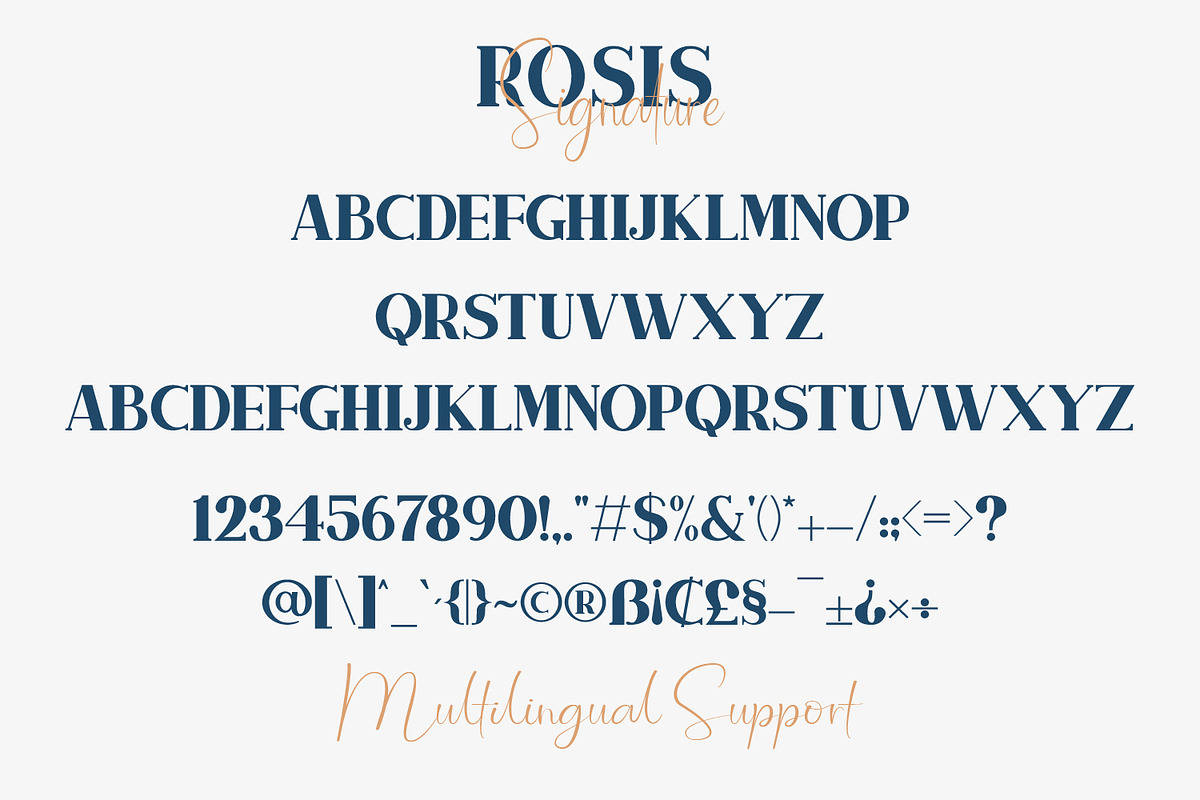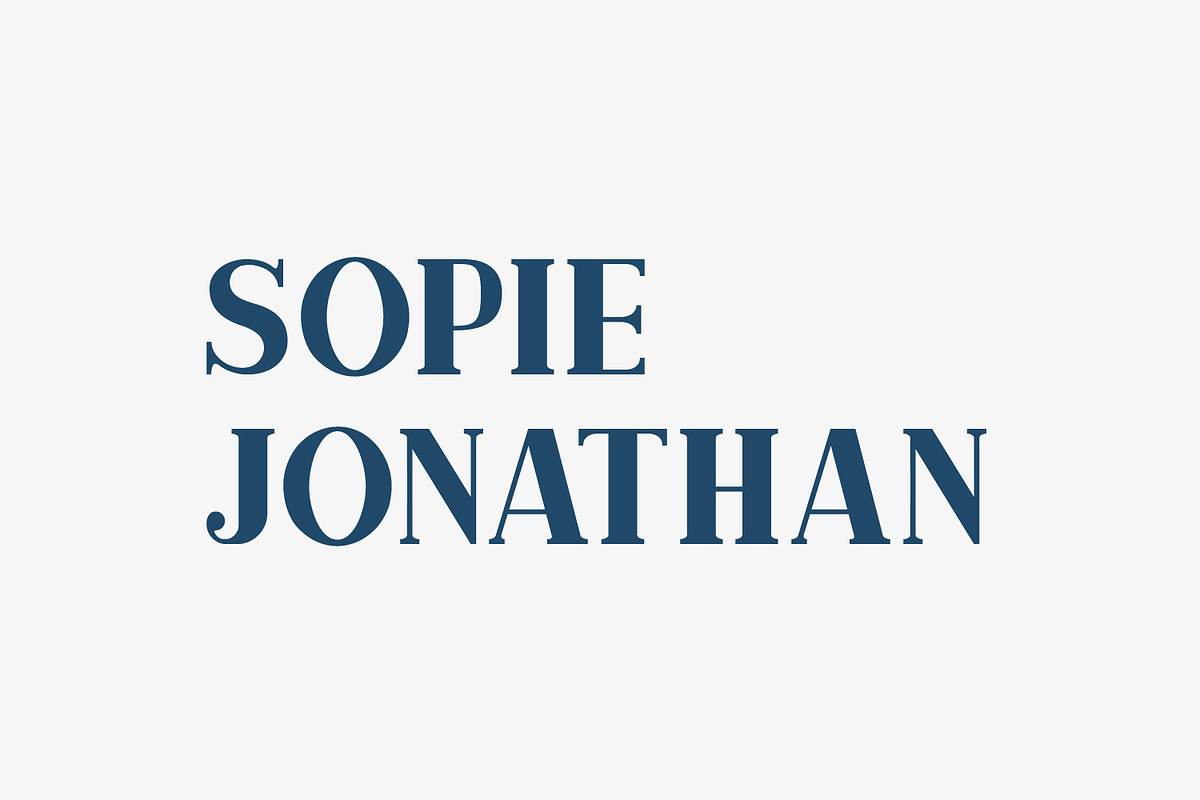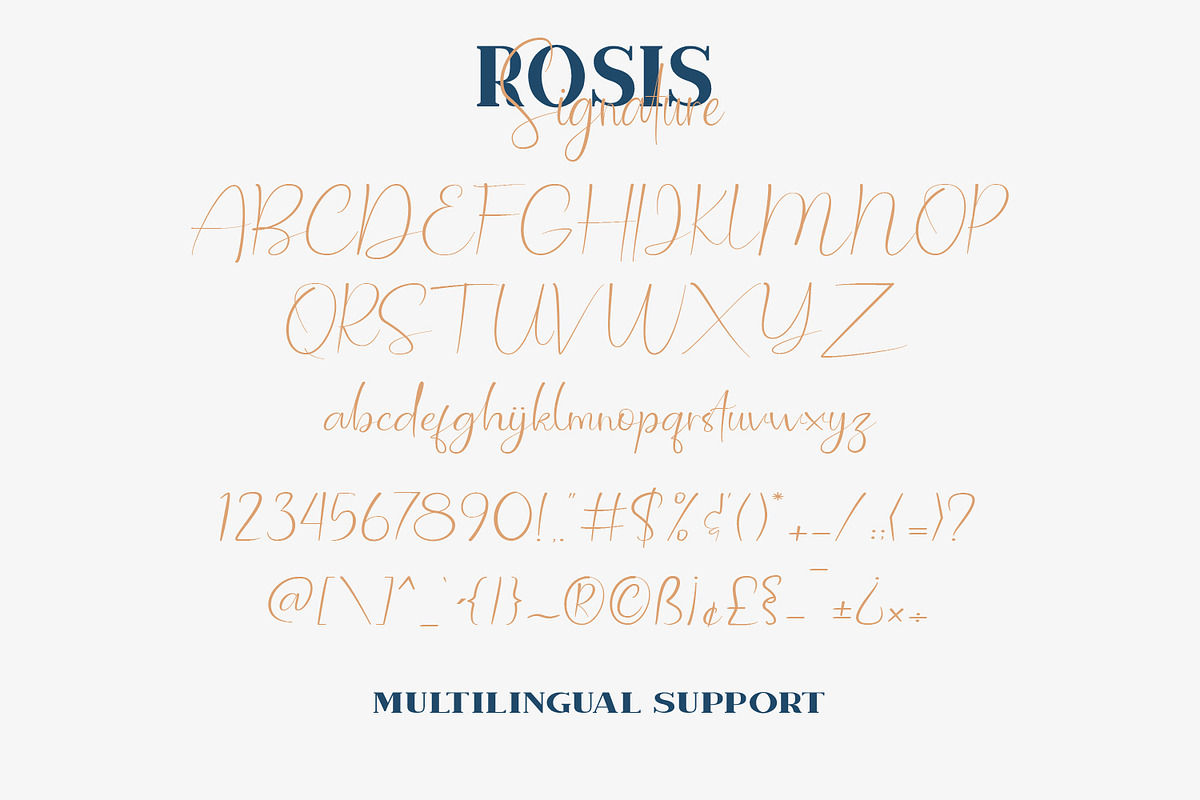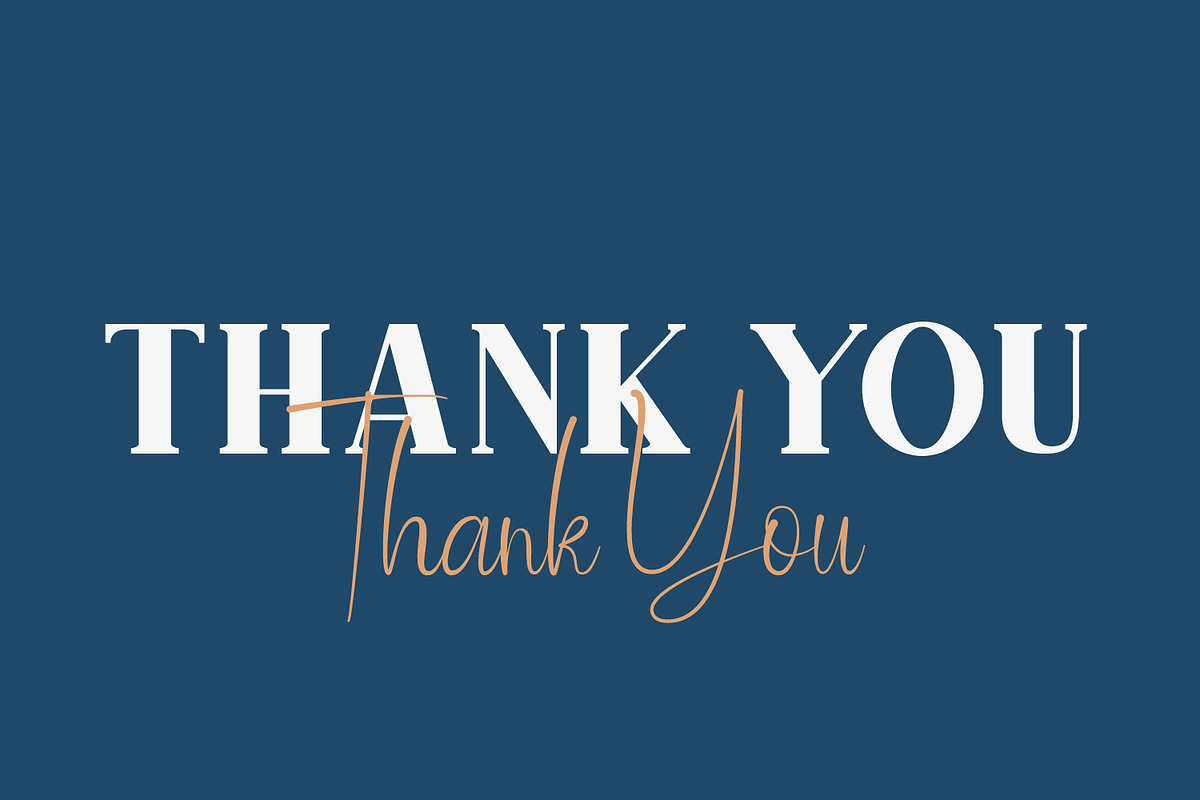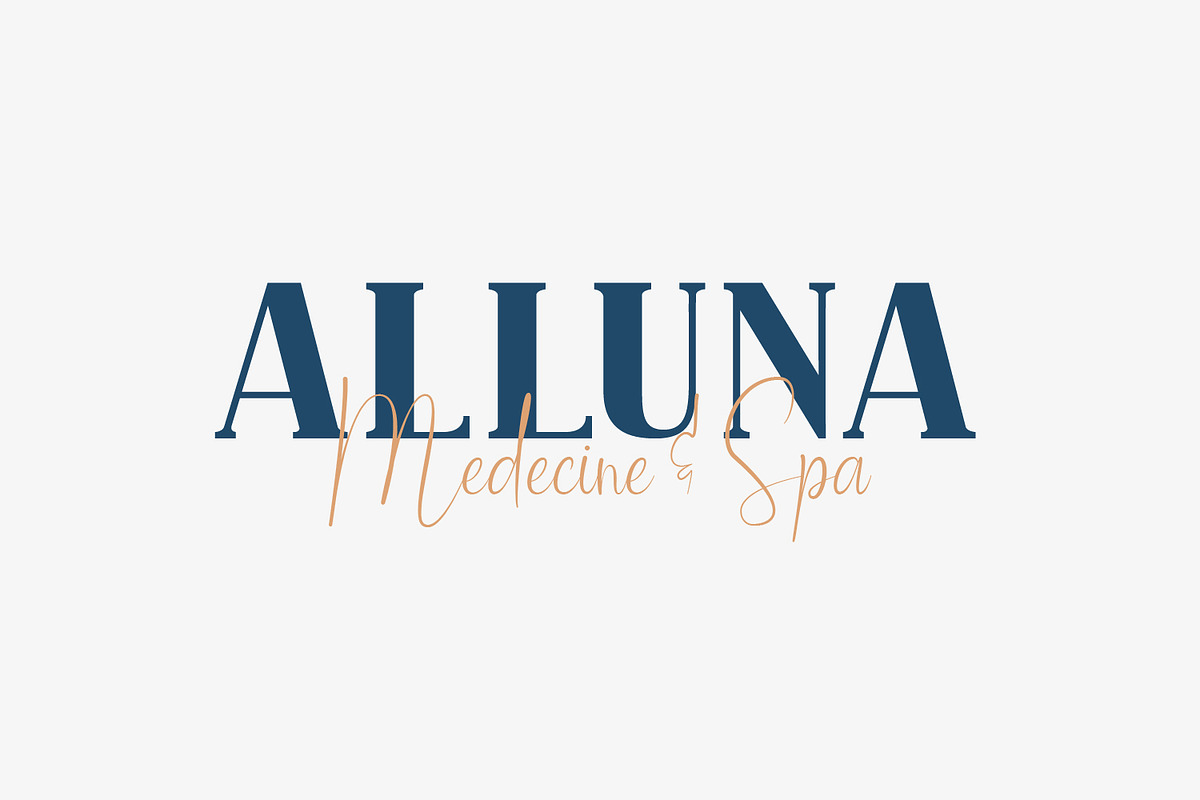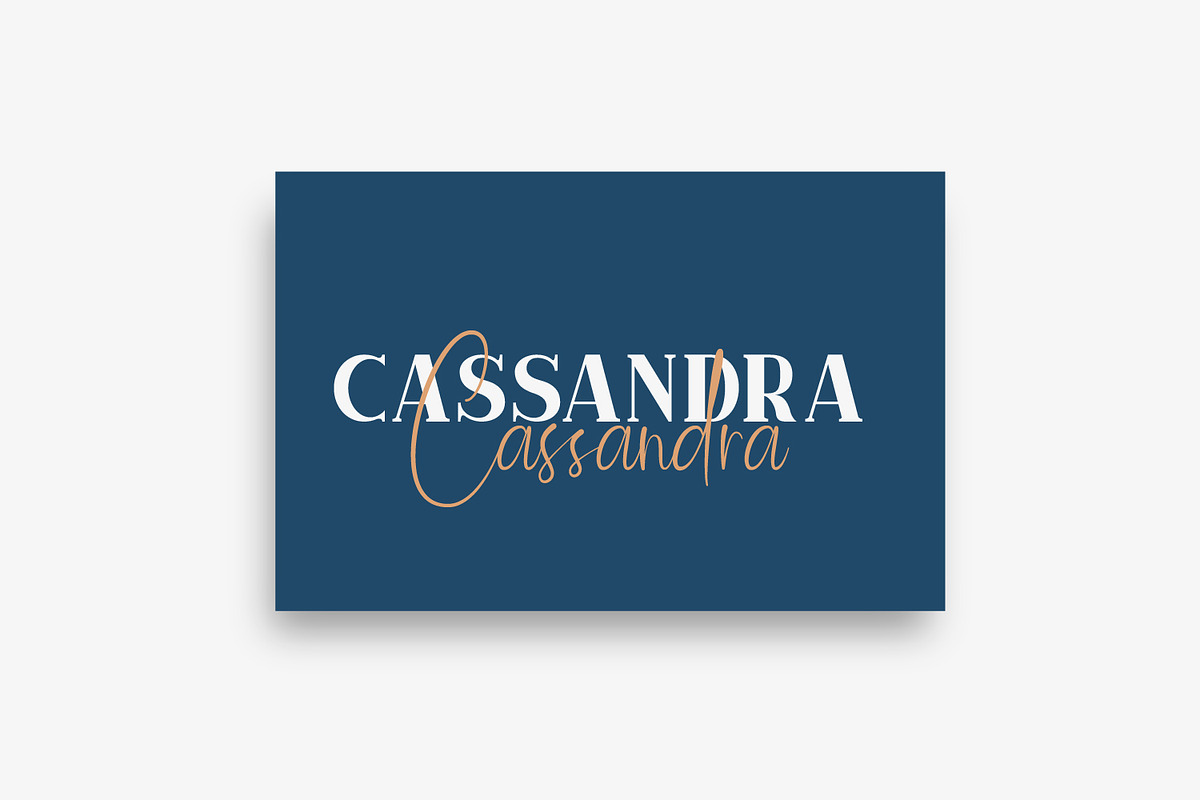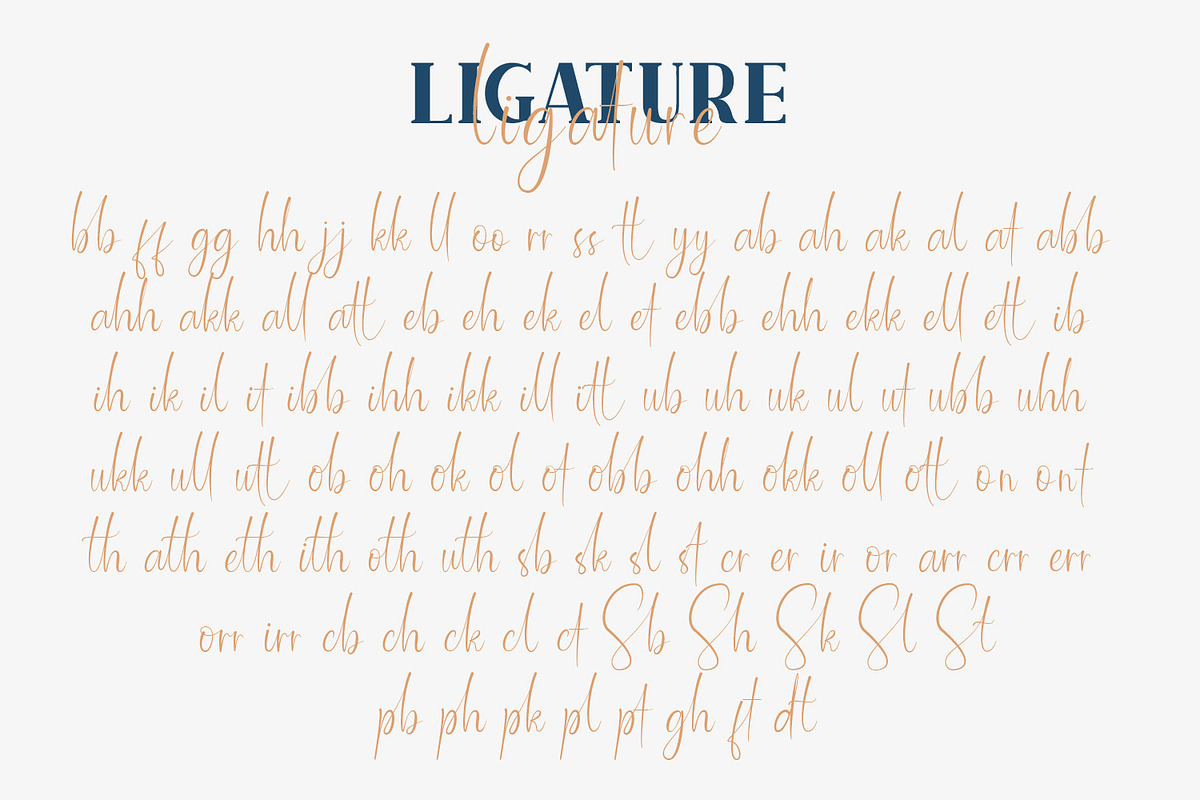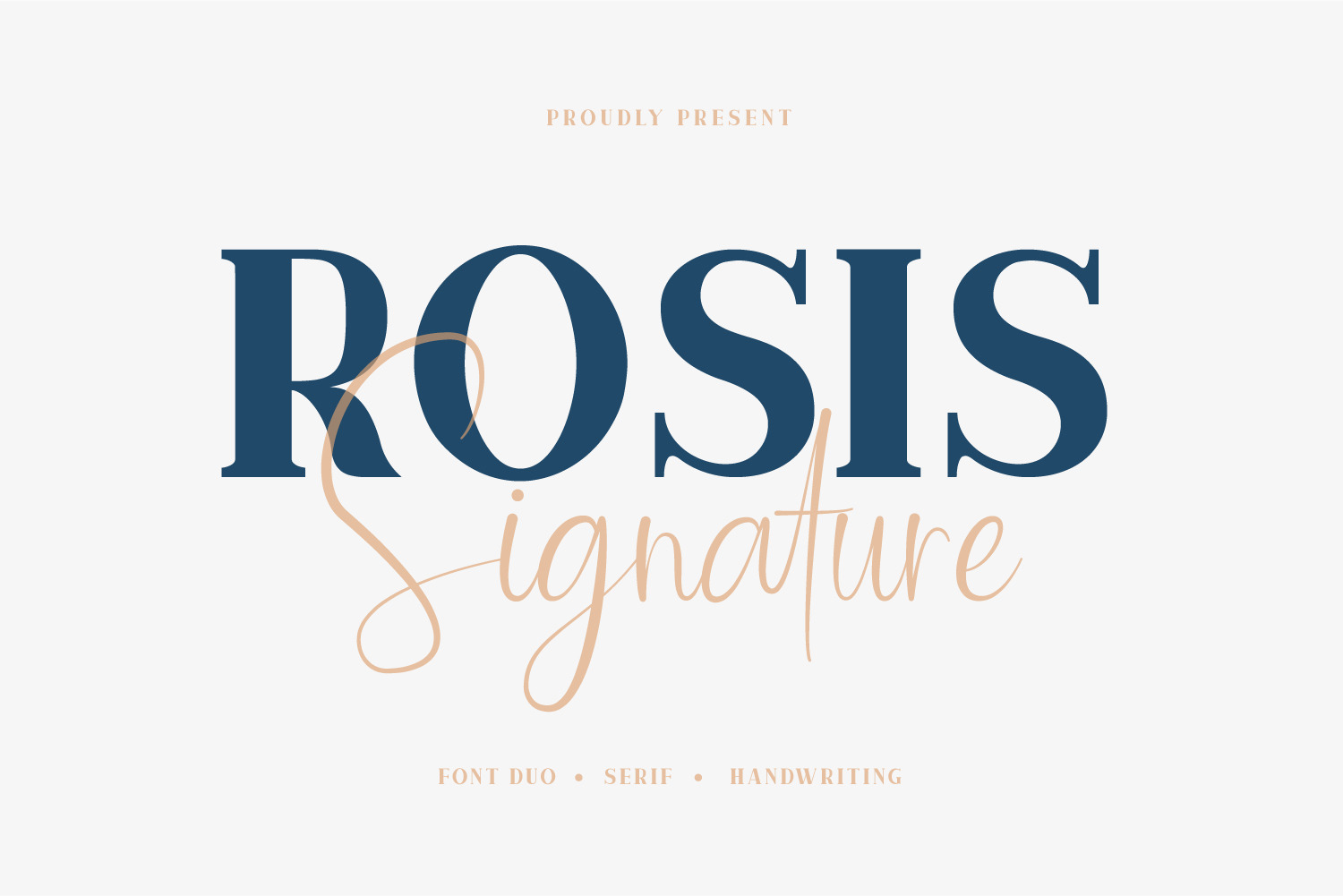
Rosis And Ballroom Font Duo
Say Hello to the latest Font from Sabrcreative STD with the duo Font style "Rosis & Ballroom". With a combination of Serif fonts and Handwriting fonts, it is perfect for logos, posters, wedding invitations, blog posts, social media, and more.
• Multilanguange
• Ligatures